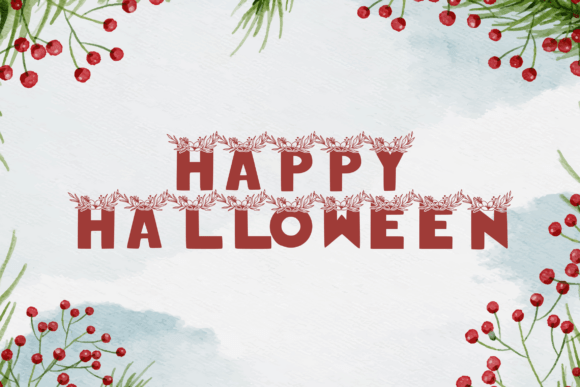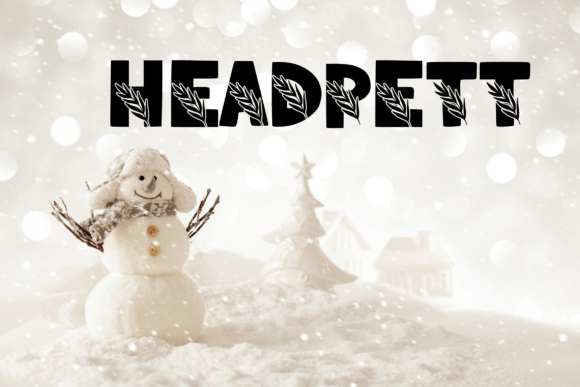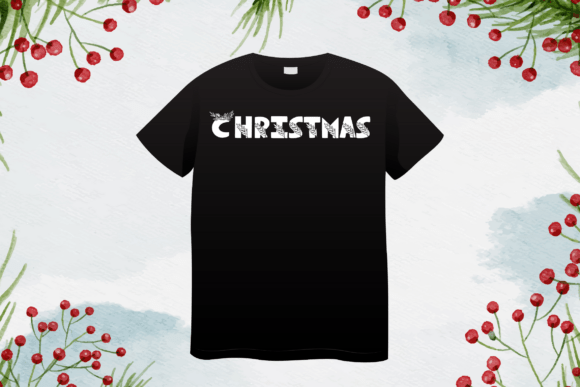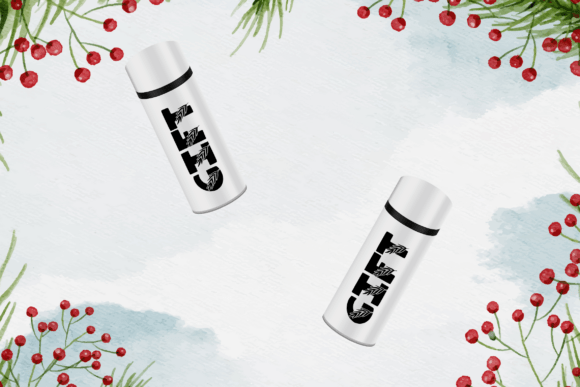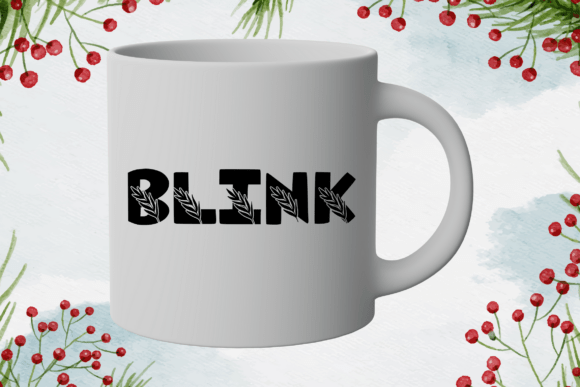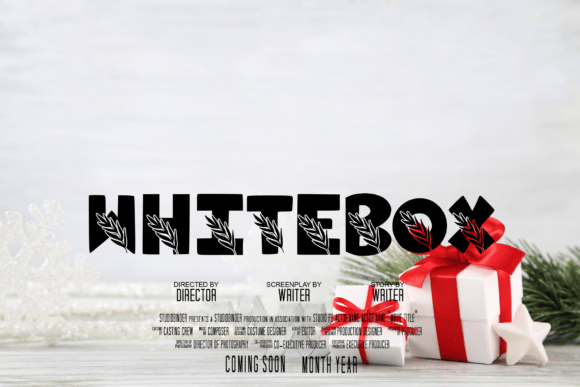
Introduction to Novox Christmas Font
Novox Christmas is a bold, cheerful display font infused with holiday spirit.
Designed to evoke warmth and celebration, this font features sturdy letterforms with subtle festive flairโperfect for holiday cards, Christmas merchandise, seasonal banners, DIY crafts, and joyful branding Its bold structure pairs beautifully with sparkling graphics and cozy winter designs.
Key Features of Novox Christmas Font